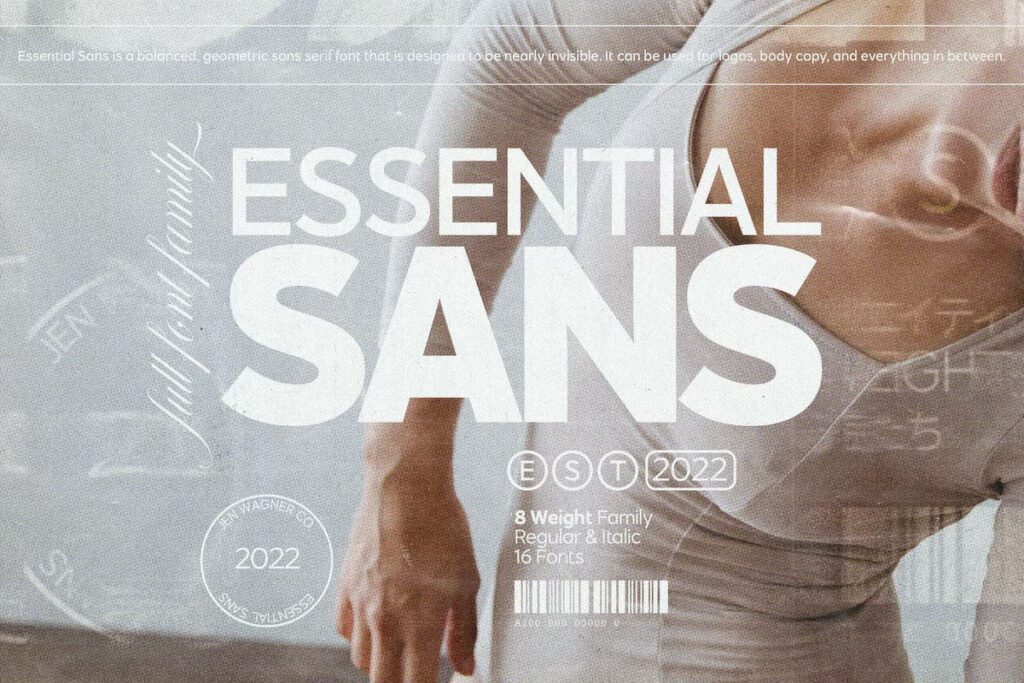
Elevate Your Designs with Essential Sans Typeface
Introducing Essential Sans, the ultimate versatile typeface by Jen Wagner Co., designed to fit effortlessly into any design project. With its clean, minimalist style, this 16-font collection is perfect for web, print, and branding applications. Whether you’re creating sleek logos, eye-catching headlines, or readable body text, Essential Sans has the tools to bring your design vision to life.
Why Essential Sans is a Must-Have for Designers
1. 16 Fonts, Infinite PossibilitiesEssential Sans includes eight different weights ranging from Hairline to Black, each with corresponding italics. You’ll also receive a variable font, giving you even more flexibility in your designs. Whether you need a light, delicate typeface or a bold, impactful one, Essential Sans has you covered.
2. Ideal for Branding and Web DesignThis typeface was specifically crafted to meet the needs of both branding and web designers. Its clean, pared-down forms ensure maximum versatility, blending seamlessly into any project. Whether you’re designing a logo, a website, or product packaging, Essential Sans can adapt to any creative need.
3. Bonus Features for CustomizationIn addition to the core fonts, Essential Sans includes a set of outline circled numbers and letters, solid circled numbers and letters, and arrows. These can be accessed through the Glyphs panel, providing extra customization options for creating minimalist logos and design elements.
4. Optimized for ReadabilityThe letter spacing in Essential Sans was intentionally crafted for clean reading. For body text, it’s spaced to ensure readability, and for display text, you can tighten the spacing (around -10 to -20) to achieve the perfect look.
Perfect Pairing Options
For designers looking to elevate their projects with a clean, versatile typeface, Essential Sans is the perfect addition to your toolkit. Whether you’re crafting logos, branding materials, or website designs, this 16-font typeface offers the adaptability you need for both minimalist and bold projects alike.